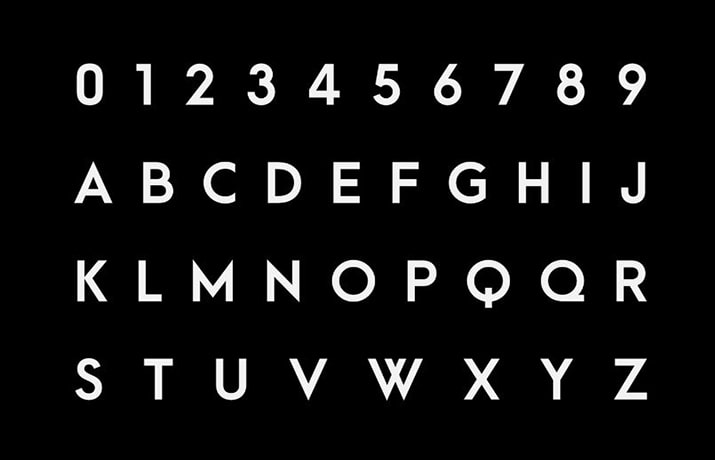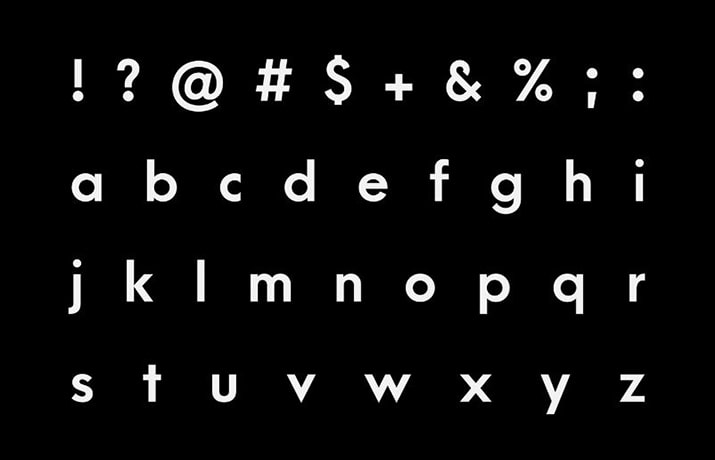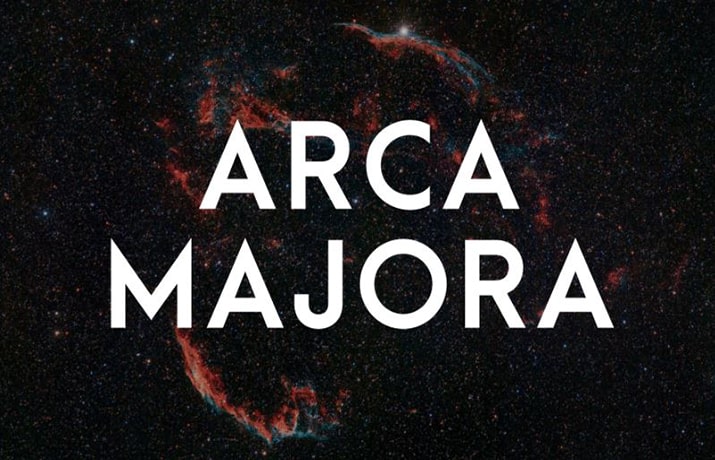
Arca Majora Font is crisp, clean, and characterized by perfect circles, hard lines, and sharp corners, it is beautiful in its simplicity. Ideal for logotypes, packaging design, letterheads, etc.
Alfredo Marco Pradil, a very keen graphic designer who hails from the United Arab Emirates. took charge of designing and sharing it for the first time on 30 September 2016.
With great clarity and unique features, this cool typeface is currently on the list of best font families.
Due to its consistent layout with other basic typefaces, it is the most important part of this free font family that is enough to engage the reader or viewer.
| Style: | Geometric, Sans Serif, Display |
It is perfect for any type of emblem layout, brochure layout, book cover, or product packaging. Composition of quotations, for film posters as well as printing in the textile industry.
Additionally, it would be a good way to use it for various card prints such as greeting cards, birthday cards, and invitation cards.
It is available in two unique styles including Bold and Heavy. Each style has its own unique structure and attributes.